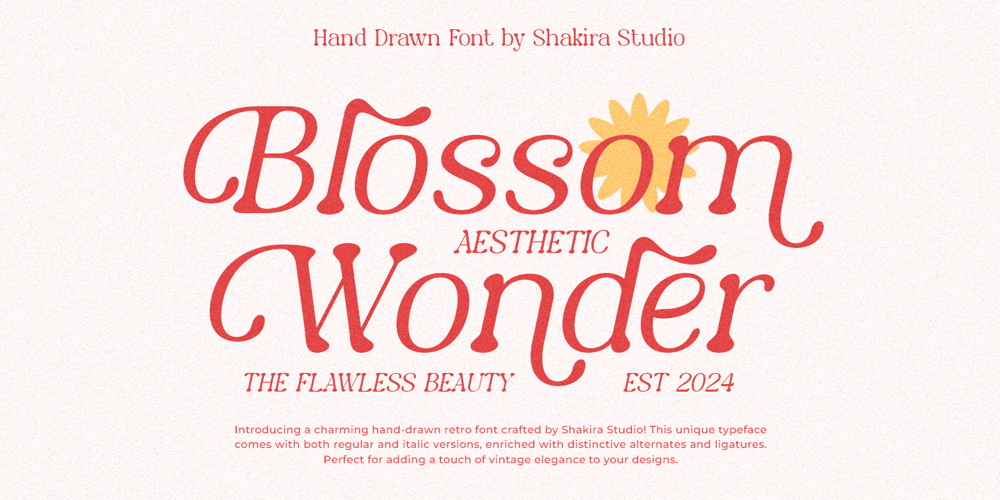
Blossom Wonder
Blossom Wonder font
Blossom Wonder Font Family was designed by Idhham Cholid Rikzano Yahya and published by Shakira Studio. Blossom Wonder contains 2 styles and family package options. Introducing Blossom Wonder – Handdrawn Serif FontDiscover the elegance of Blossom Wonder, a handdrawn serif font designed with unique alternates and ligatures. Perfect for branding, logo design, and creative projects, this font blends classic charm with a modern twist. Enhance your designs with the stylish and artistic flair of Blossom Wonder today!Here’s what you get: Regular & Italic All Multilingual symbol Opentype features ( ligature, alternate ) Accessible in the Adobe Illustrator, Adobe Photoshop, Adobe InDesign, even work on Microsoft Word. PUA Encoded Characters – Fully accessible without additional design software. Multilingual character supports : (Afrikaans, Albanian, Catalan, Croatian, Czech, Danish, Dutch, English, Estonian, Finnish, French, German, Hungarian, Icelandic, Italian, Lithuanian, Maltese, Norwegian, Polish, Portuguese, Slovenian, Spanish, Swedish, Turkish, Zulu)Thank you!Shakira Studio